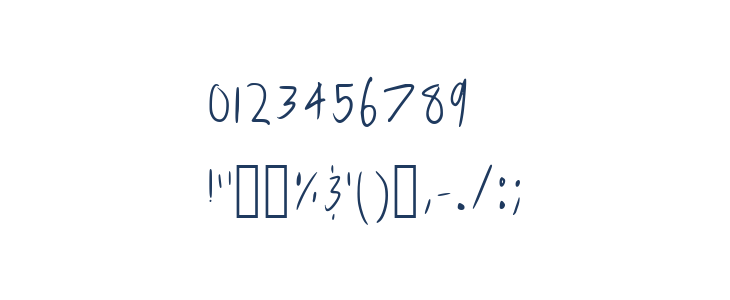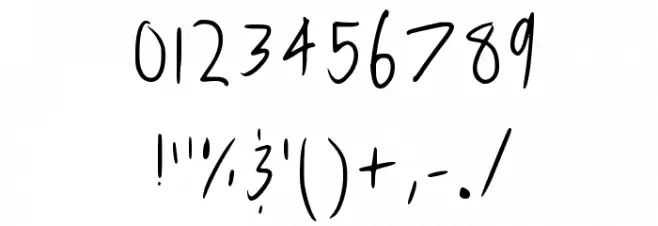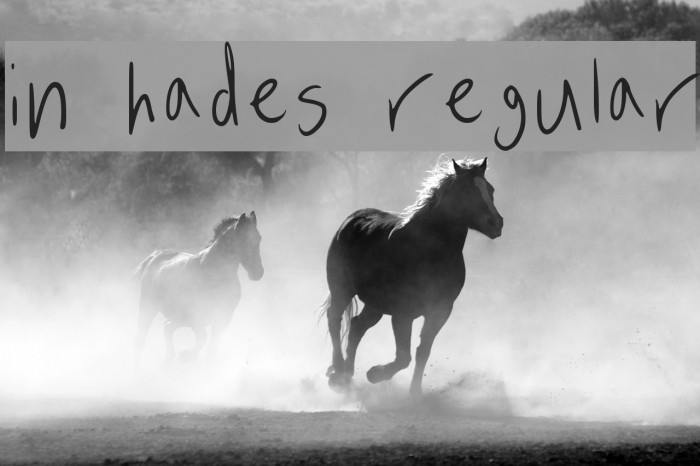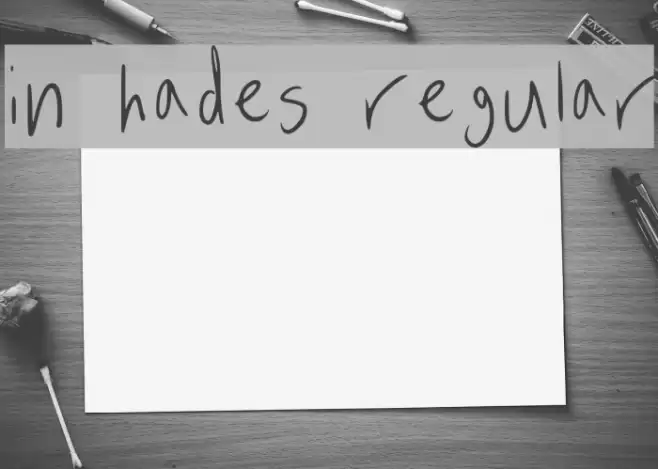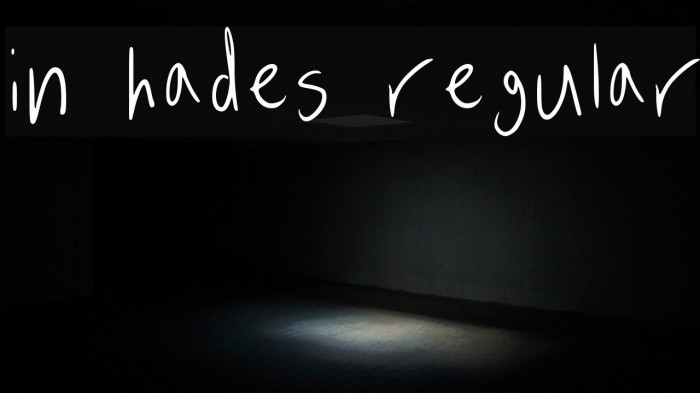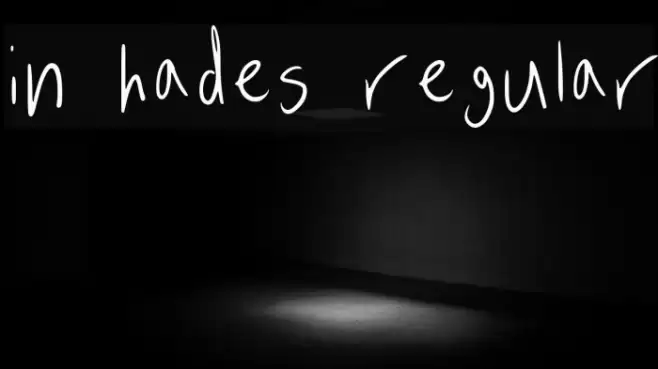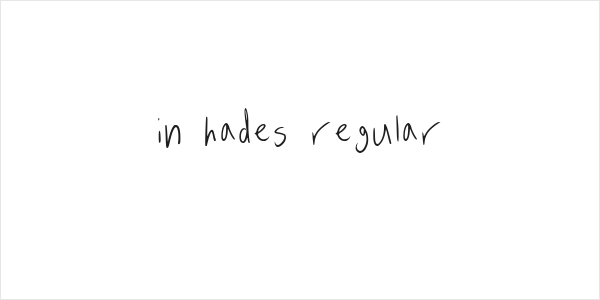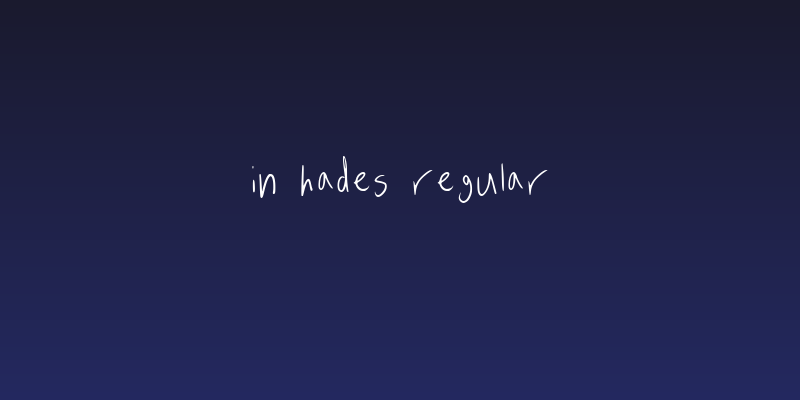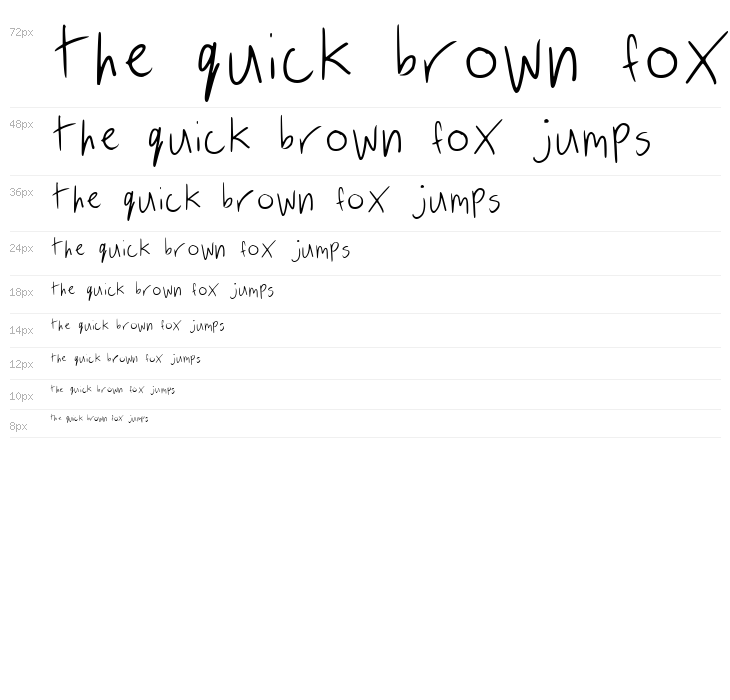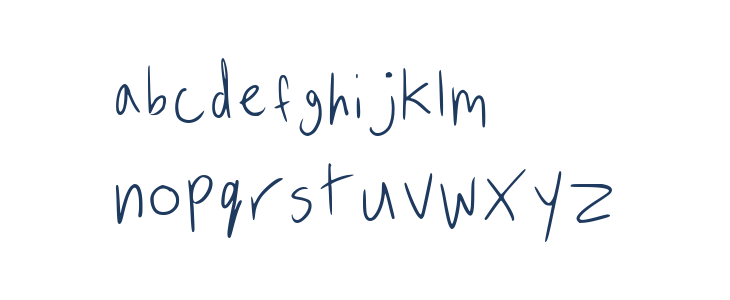
In Hades Regular Font
In Hades Regular Description
This font features a casual, handwritten style that exudes a playful and informal vibe. The characters are slightly irregular, with varying stroke widths that add to its charm and authenticity. The uppercase and lowercase letters maintain a consistent flow, while the numerals and special characters complement the overall aesthetic. The font's organic appearance makes it suitable for projects that require a personal touch, such as greeting cards, invitations, or creative branding. Its legibility and unique character make it versatile for both digital and print media.
| Proposed Projects | Ideal for greeting cards, invitations, creative branding, and personal projects. |